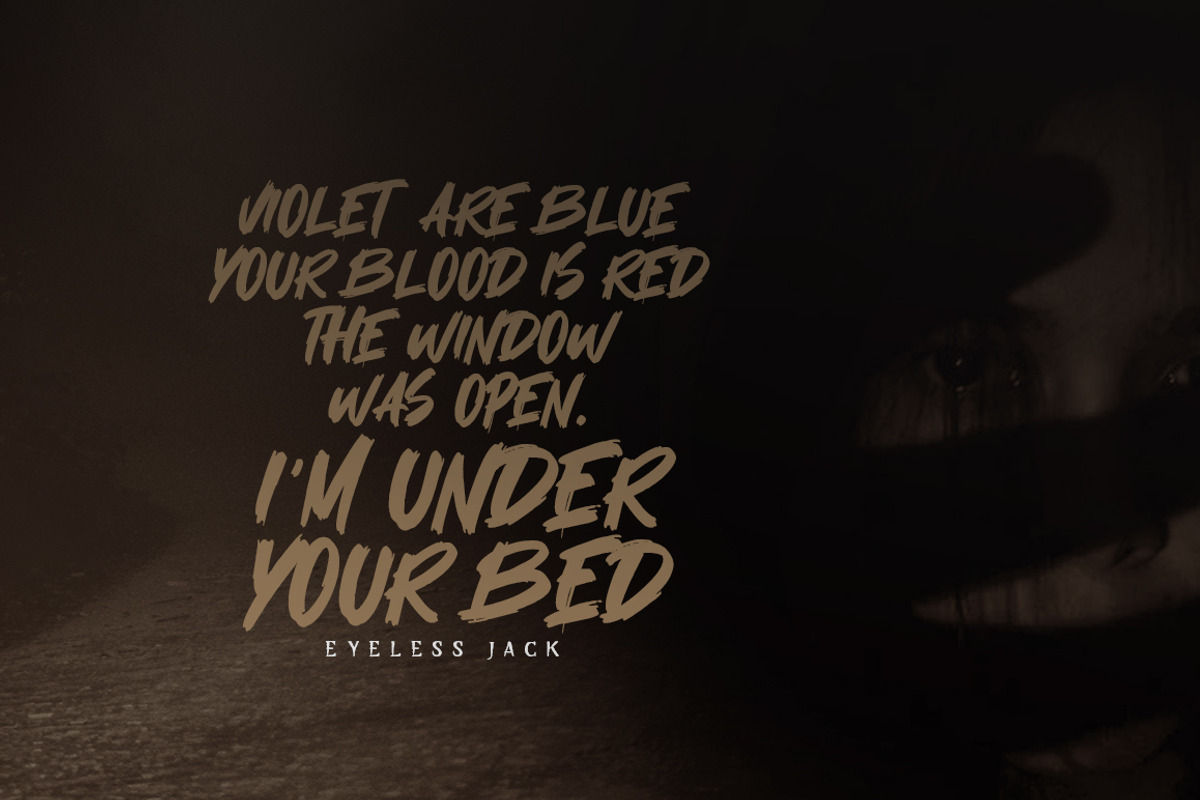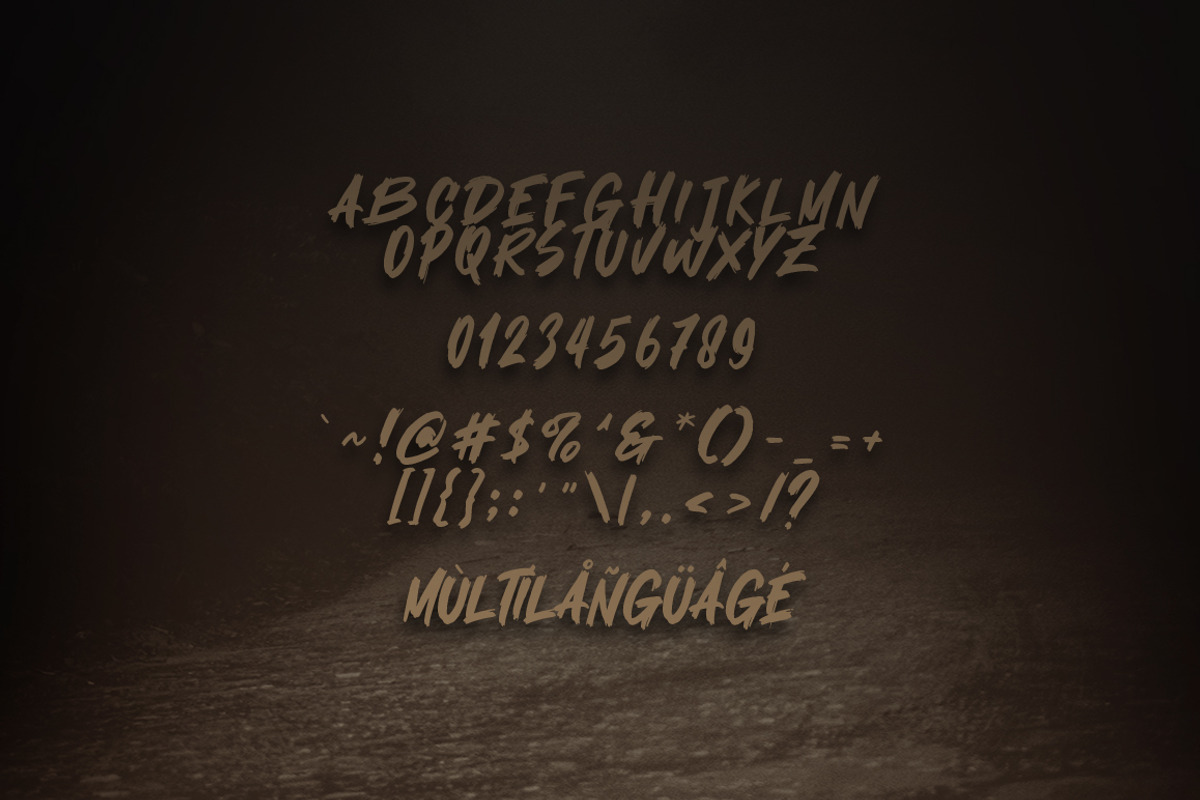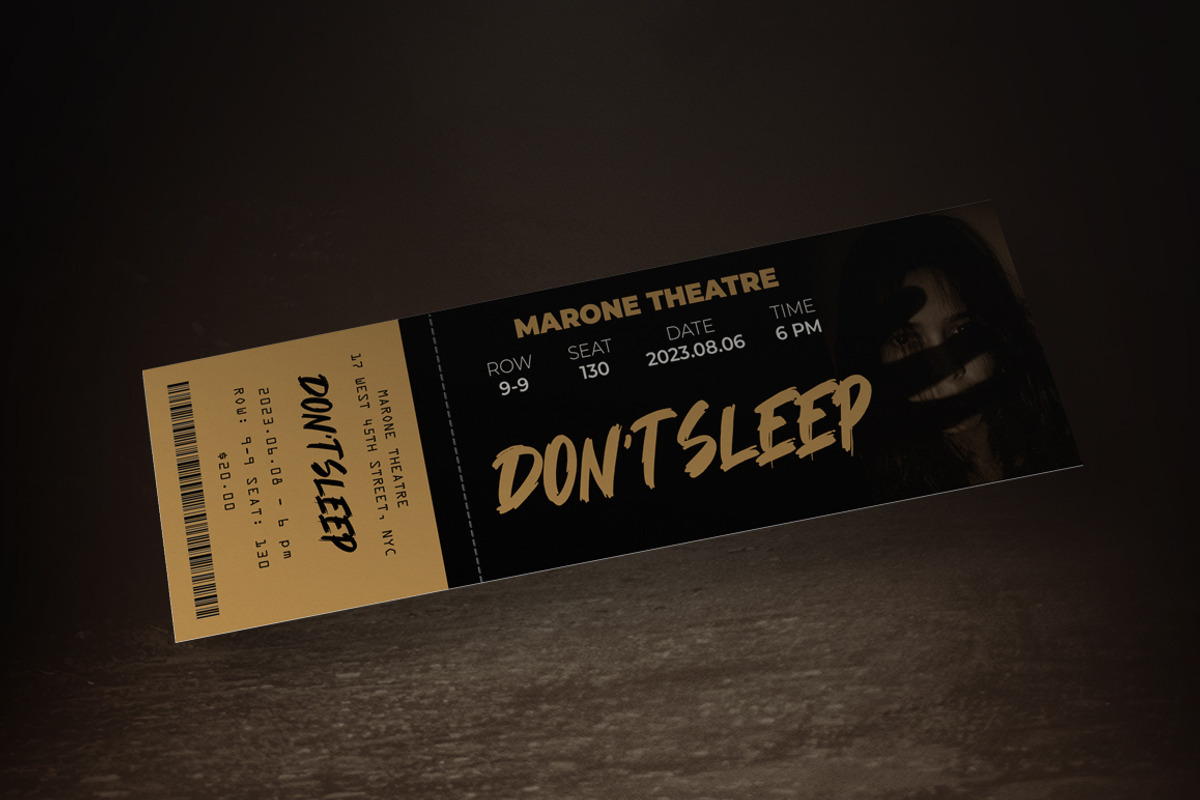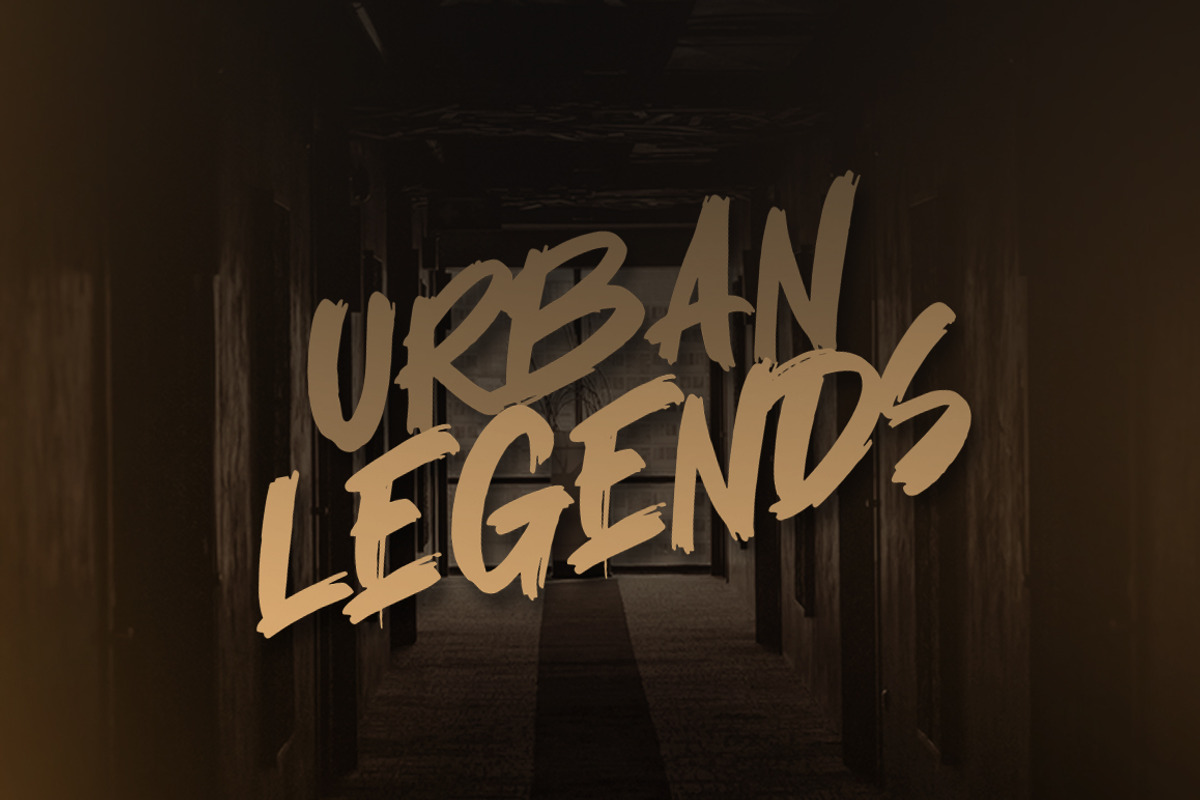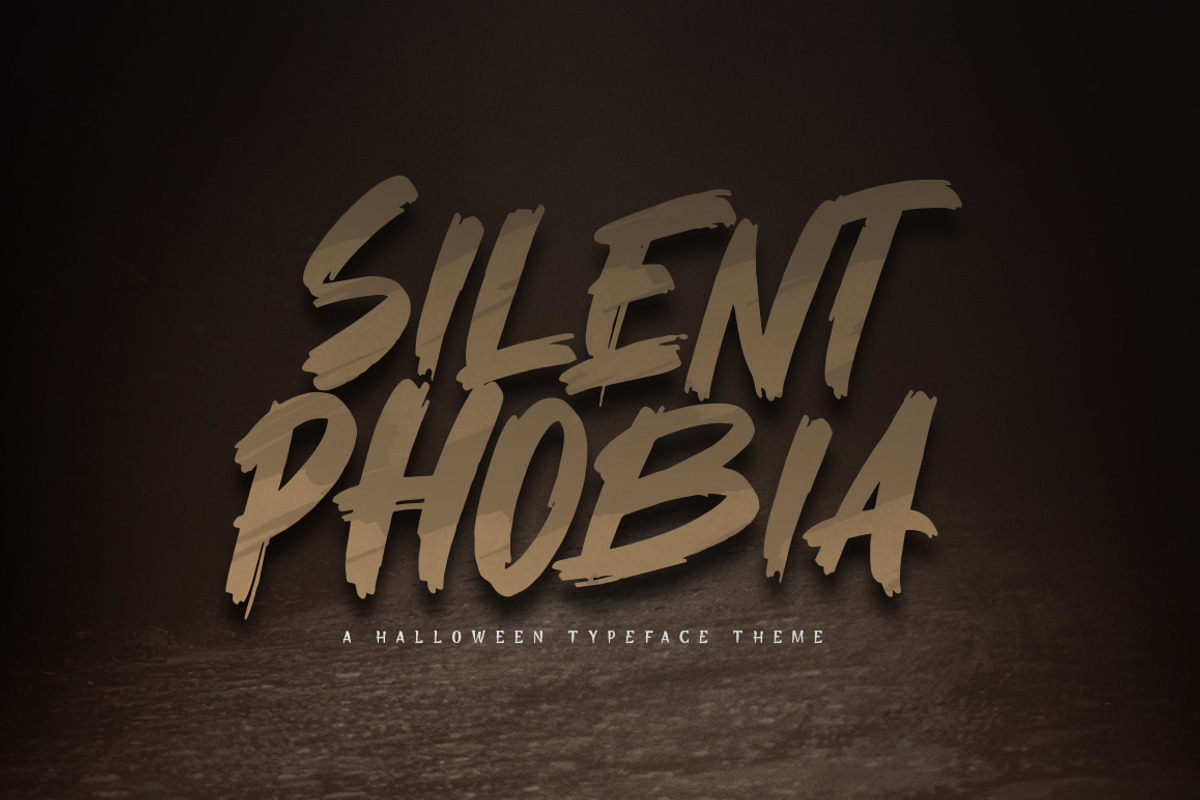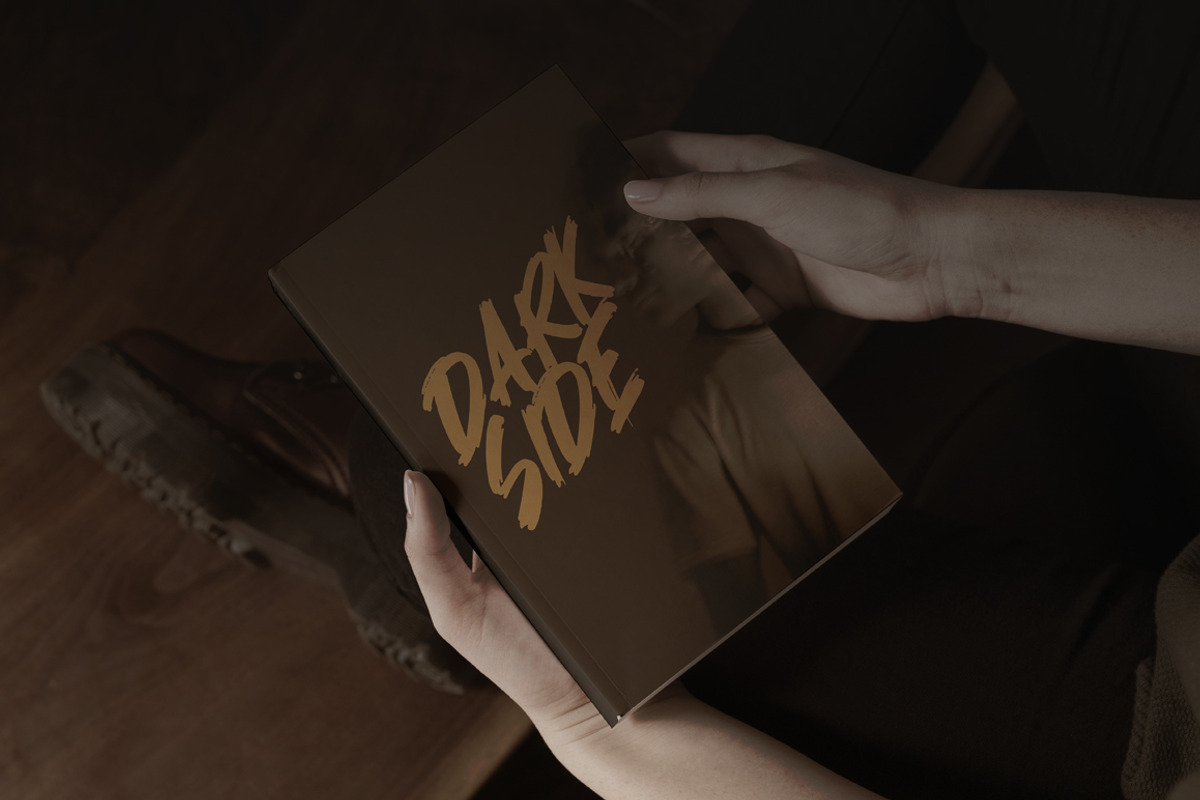
Silent Phobia
Silent Phobia a display horror font for your halloween project. Silent Phobia font suitable for logo, branding, greeting card, branding, poster and any design that you create.